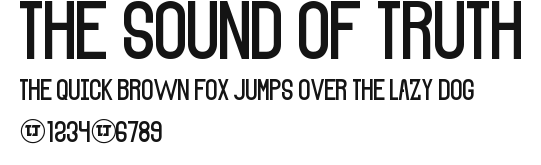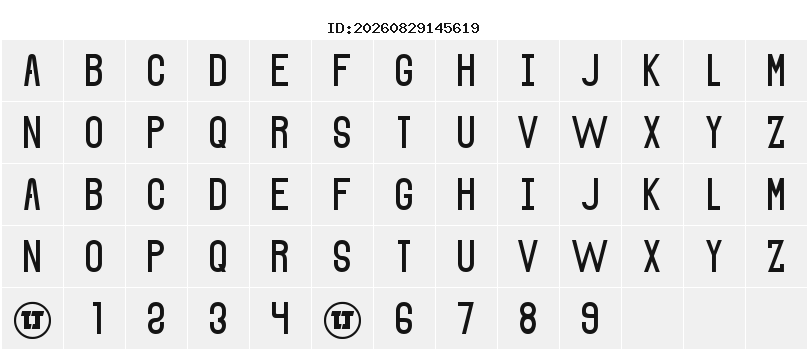
• Font Name: The Sound of Truth
• Font Style: smooth
• Designer: Luis Jaramillo
• Manufacturer: LJ-Design Studios
About The Sound of Truth.ttf
The Sound of Truth.ttf is a modern, elegant sans-serif font designed for ultimate readability and visual harmony. Perfect for branding, headlines, web design, and print materials.